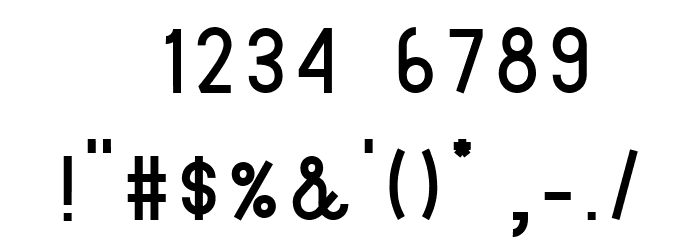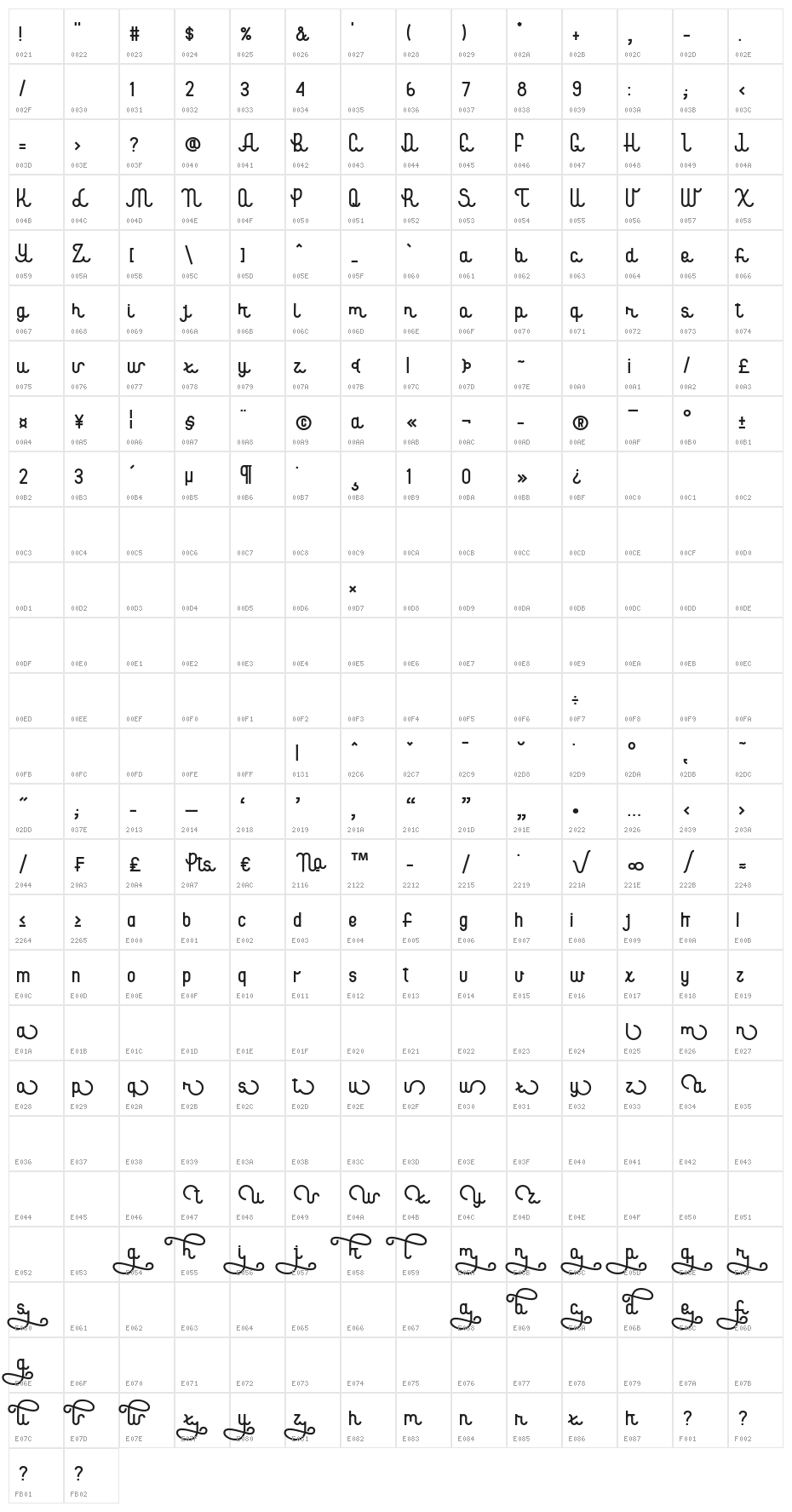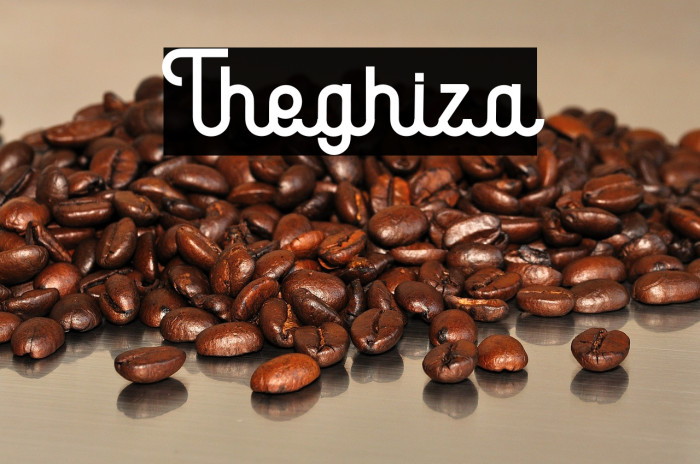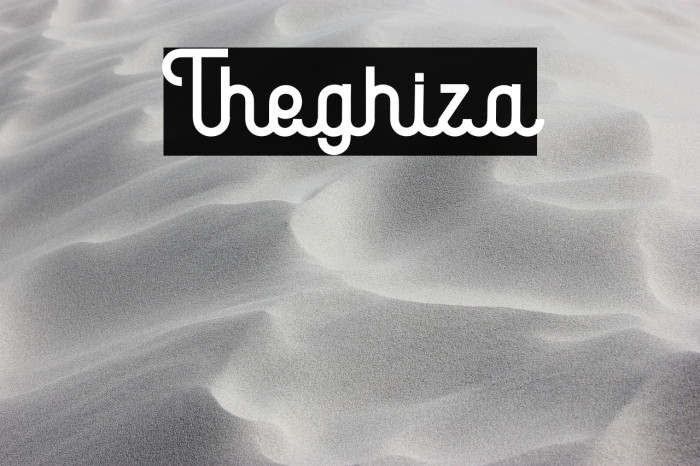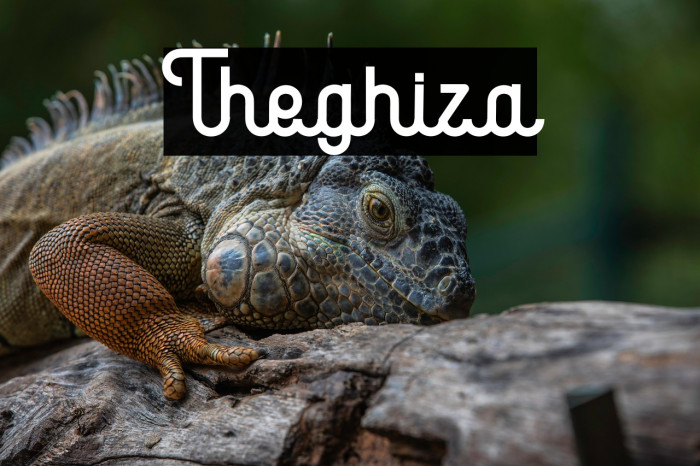
Theghiza Font
This font features a unique and playful design with a continuous, flowing style that connects each letter seamlessly. The uppercase letters are bold and prominent, with a whimsical loop at the bottom of each character, adding a touch of elegance and creativity. The lowercase letters maintain the same flowing style, creating a harmonious balance between the two cases. Numbers are clear and easy to read, with a consistent weight that matches the letters. Special characters are included, maintaining the same playful and cohesive design. This font is ideal for projects that require a touch of fun and creativity, such as children's books, playful branding, or artistic posters.
A playful, flowing font with seamless connections and whimsical loops.
- Proposed Projects: Ideal for children's books, playful branding, artistic posters, and creative invitations.
- Overall Style: Playful, Creative